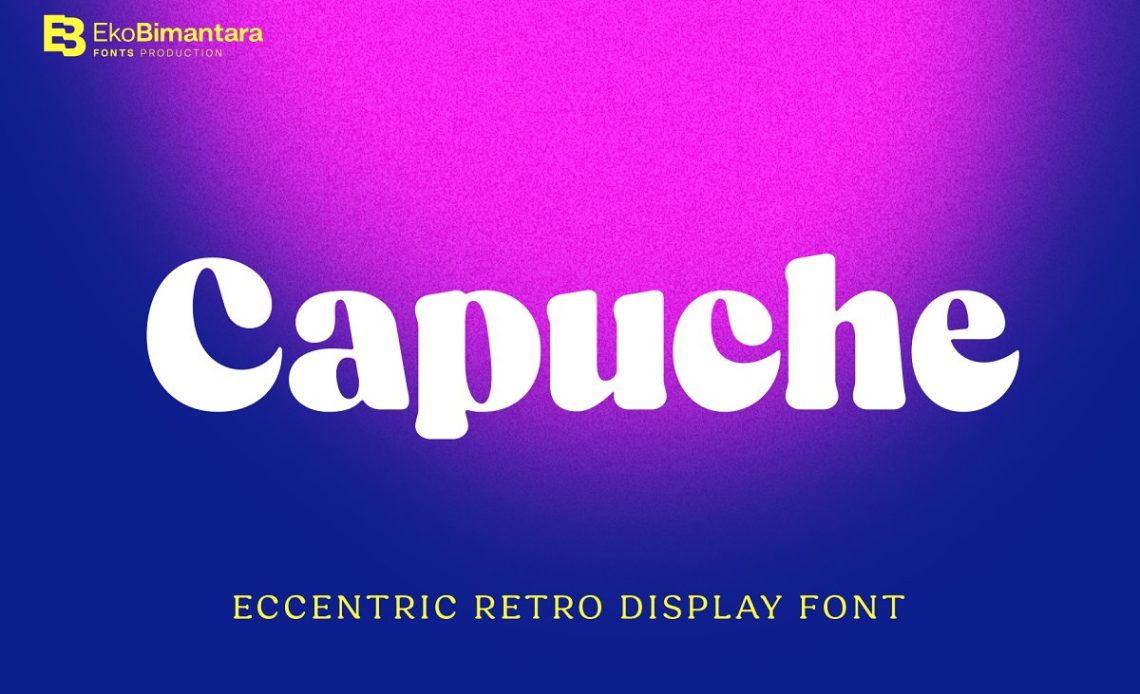
Introducing Capuche, the Retro Display Font that will transport your designs back in time! Created by the talented eko bimantara, this eccentric and bold typeface is guaranteed to make your projects stand out from the crowd. Whether you're in need of a captivating logo, branding elements, or eye-catching titling, Capuche is the perfect choice.
With its bloating and retro-inspired design, Capuche brings a unique charm to any creative endeavor. Its vintage aesthetic instantly evokes feelings of nostalgia and adds a sense of authenticity to your designs. Say goodbye to boring and predictable fonts – Capuche is here to infuse your projects with a touch of personality and style.
Why settle for ordinary when you can have extraordinary? Capuche offers a vast range of possibilities, allowing you to unleash your creativity without limits. Its versatility makes it suitable for a wide range of design purposes, making it an essential tool in any designer's arsenal.
Captivate your audience with the captivating power of Capuche. This font is more than just letters on a page – it's a story waiting to be told. Its expressive and emotive qualities will leave a lasting impression on your viewers, stirring up emotions and sparking curiosity. Whether you're aiming for a retro vibe or a bold statement, Capuche has got you covered.